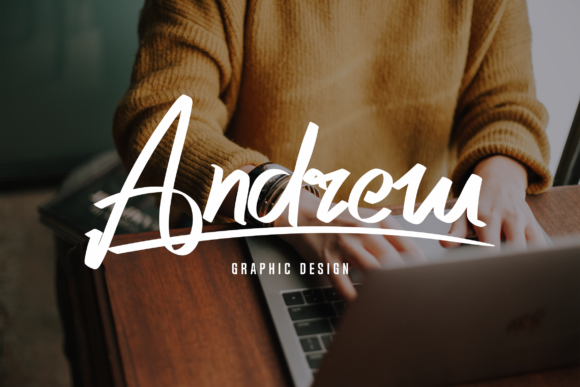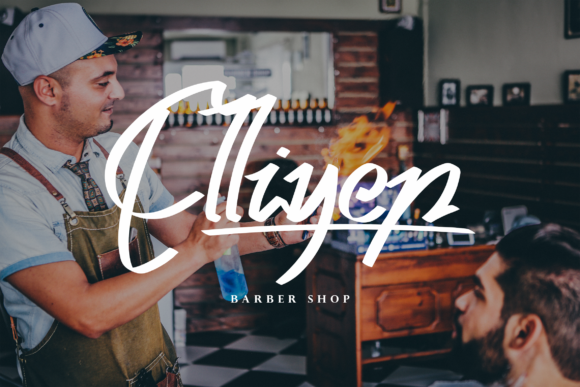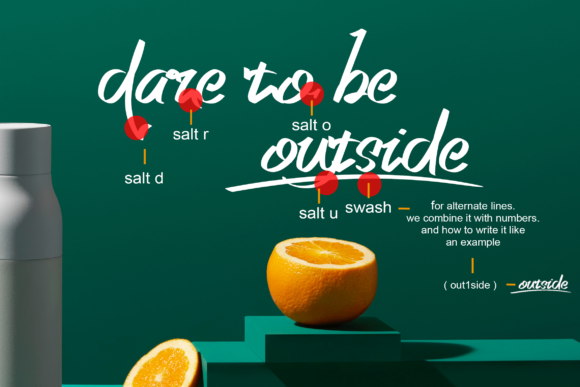
Introduction to Single Binghod Font
As a designer, you know the thrill of bringing a project to life. The rush of creativity, the satisfaction of seeing your vision take shape – it’s what makes our job so rewarding. But sometimes, it’s the smallest details that can make all the difference. That’s where the Single Binghod Font comes in – a game-changing addition to any design project.
With its casual, modern handwritten style, the Single Binghod Font is the perfect choice for branding, headings, wedding designs, invitations, signatures, logos, labels, and much more. Whether you’re working on a high-end campaign or a personal project, this versatile font is sure to elevate your design to the next level.
Key Features of Single Binghod Font
- High-quality, unique design resource ideal for creative projects
- Transparent background, allowing for seamless integration with various designs
- Includes a comprehensive character set, covering a wide range of languages and symbols
- Single Binghod Font is a versatile, modern design resource perfect for various creative projects
Honest Review: Single Binghod Font
I recently had the chance to work with the Single Binghod Font on a creative project and I must say it’s been a game-changer. The quality of the font is top-notch, with crisp lines and smooth curves that make it perfect for a variety of design applications.
One of the things that stands out about this font is its versatility. It’s available as a free download, which is a major plus for designers on a budget. And, with a transparent background, it’s easy to layer with other design elements and create unique visual effects.
- Transparent background for easy layering
- May not be suitable for projects that require a bold, attention-grabbing font
- Some users have reported issues with font rendering on certain systems
Overall, I’m really impressed with the Single Binghod Font. It’s a solid addition to any designer’s toolkit and I’d definitely recommend it to anyone looking for a high-quality font resource.
How to Use Single Binghod Font
Designing with Single Binghod Font
Single Binghod Font is a versatile and unique design resource perfect for any creative project. With its transparent background, it can be easily layered over other graphics or images to create a stunning visual effect.
Tips for Getting the Most Out of Single Binghod Font
To get the most out of Single Binghod Font, try using it in combination with other high-quality design elements, such as graphics and images. Experiment with different font sizes, colors, and layouts to create a unique and eye-catching visual effect.
Common Use Cases for Single Binghod Font
Single Binghod Font is perfect for a variety of creative projects, including:
- Brochure design
- Infographic design
Alternatives to Single Binghod Font
Open Sans is a popular, high-quality sans-serif font designed for digital applications. It’s ideal for creative projects that require a clean and modern design. This font is free to download and offers a transparent background, making it suitable for various design resources.
Open Sans compares well to Single Binghod Font in terms of its versatility and readability. However, it lacks the unique characteristics of Single Binghod Font, making it a more generic choice.
2. Montserrat
Montserrat is a geometric sans-serif font that originated from a sign in a Buenos Aires neighborhood. It’s perfect for creative projects that require a touch of urban sophistication. This font is available for free download and offers a transparent background, making it suitable for various design resources.
Montserrat compares well to Single Binghod Font in terms of its geometric structure and modern design. However, it lacks the quirky charm of Single Binghod Font, making it a more formal choice.
Lato is a modern sans-serif font that’s designed to be highly legible. It’s ideal for creative projects that require a clean and elegant design. This font is free to download and offers a transparent background, making it suitable for various design resources.